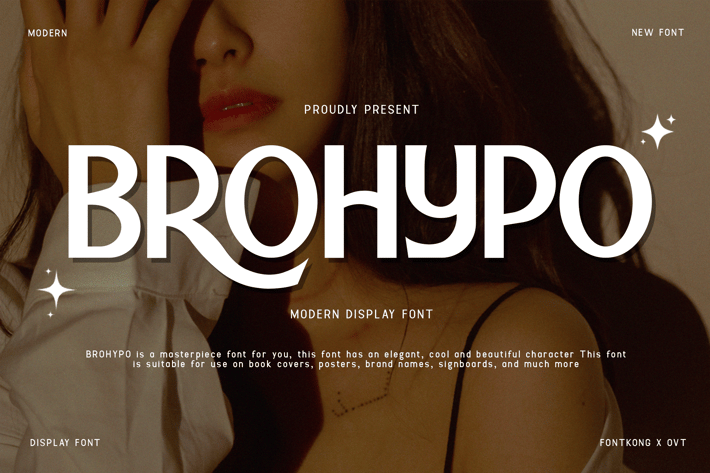
Brohypo - A Modern Display Font
Brohypo is a bold and captivating modern display font designed to bring a dynamic edge to your design projects. With its striking letterforms and contemporary style, Brohypo is perfect for posters, branding, magazine covers, and event flyers. This font combines modern aesthetics with a powerful visual impact, ensuring your work stands out with a unique and energetic vibe.
Crafted with meticulous detail, Brohypo features robust characters that offer excellent readability and visual appeal. Its bold design makes it ideal for headlines and display text, providing a memorable and commanding presence. The font’s versatility allows it to seamlessly adapt to various design contexts, from digital screens to printed materials, making it a valuable asset for any designer.
Elevate your design projects with Brohypo, a font that embodies the essence of modern display typography. Its unique style and adaptability make it an essential addition to any designer’s toolkit. Make a bold statement with Brohypo and experience the power of contemporary typography.
Brohypo is a bold and captivating modern display font designed to bring a dynamic edge to your design projects. With its striking letterforms and contemporary style, Brohypo is perfect for posters, branding, magazine covers, and event flyers. This font combines modern aesthetics with a powerful visual impact, ensuring your work stands out with a unique and energetic vibe.
Crafted with meticulous detail, Brohypo features robust characters that offer excellent readability and visual appeal. Its bold design makes it ideal for headlines and display text, providing a memorable and commanding presence. The font’s versatility allows it to seamlessly adapt to various design contexts, from digital screens to printed materials, making it a valuable asset for any designer.
Elevate your design projects with Brohypo, a font that embodies the essence of modern display typography. Its unique style and adaptability make it an essential addition to any designer’s toolkit. Make a bold statement with Brohypo and experience the power of contemporary typography.